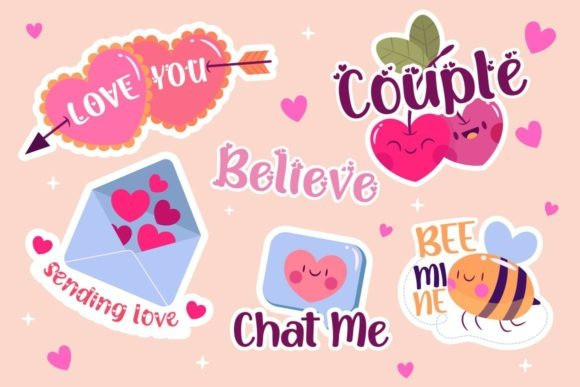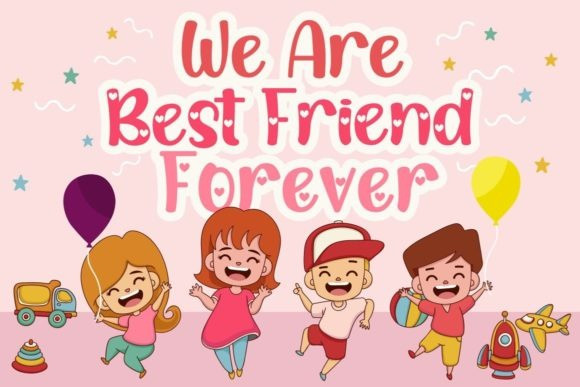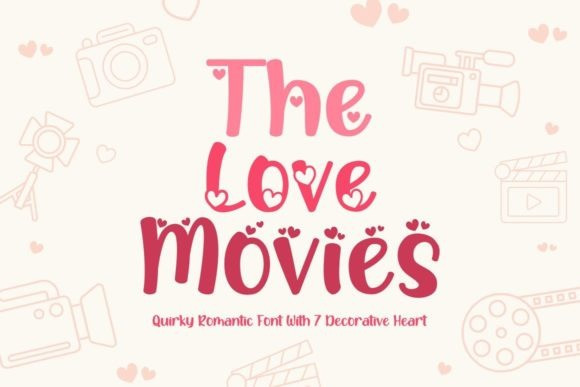
The Love Movies Font
The Love Movies Display Font is a chic, romantic and sweet display font. Add it to each of your love letters, party invitation, gathering or pretty much any design that requires a touch of youth and joy.